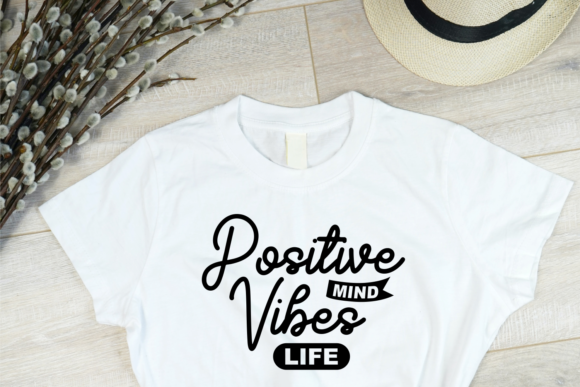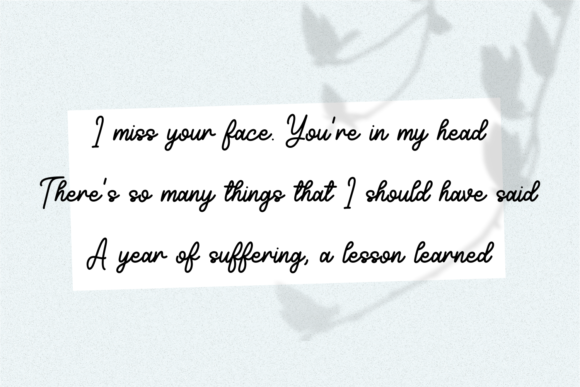
Honey and Friends Font
db-ku.com - Script & Handwritten -- Honey and Friends is a fancy and elegant handwritten font created to impress your audience and make your branding shine.